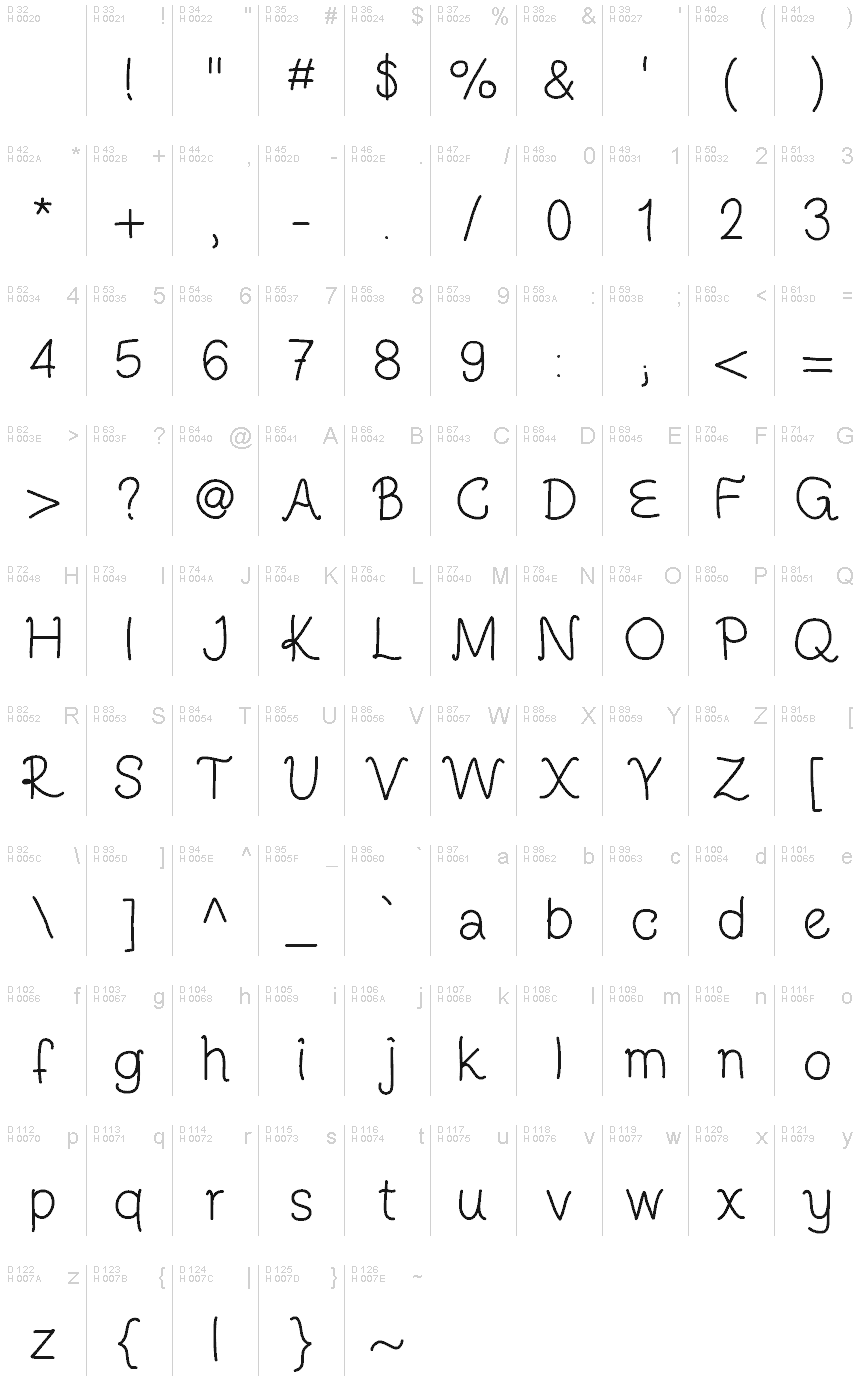
LeParisien
Le Parisien, a captivating handwritten font crafted by Idil Keysan, exudes a warm, organic charm that captivates the eye. This expressive typeface boasts fluid, elegant strokes that evoke the artistry of a skilled calligrapher. The unique character of each letter, with its subtle variations and imperfections, lends a sense of authenticity and character that transcends the digital realm.
Le Parisien's versatility shines through its ability to seamlessly adapt to a diverse array of design applications. From invitations and stationery to branding and editorial layouts, this font's expressive flair can breathe life into any project, imbuing it with a touch of Parisian sophistication and charm. Whether you seek to convey a sense of artisanal craftsmanship or evoke an essence of timeless elegance, Le Parisien is a captivating choice that is sure to leave a lasting impression.